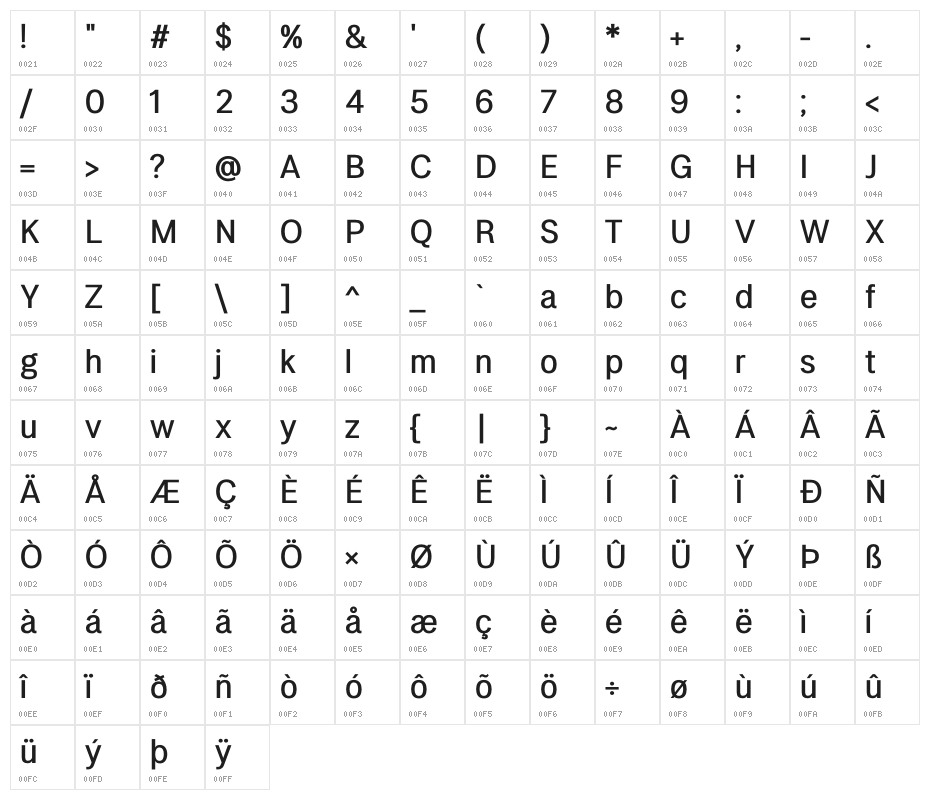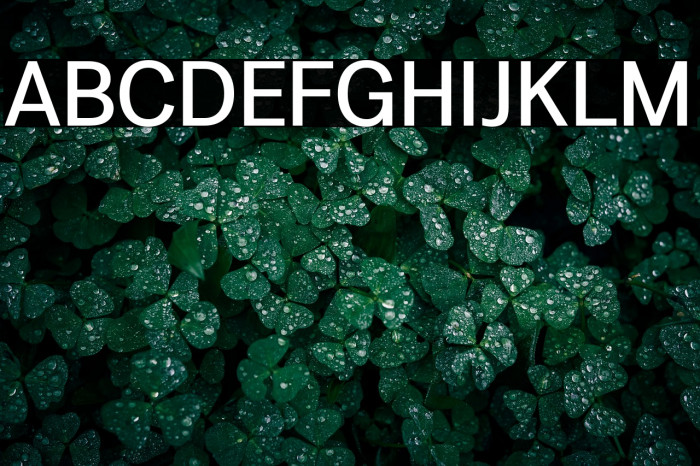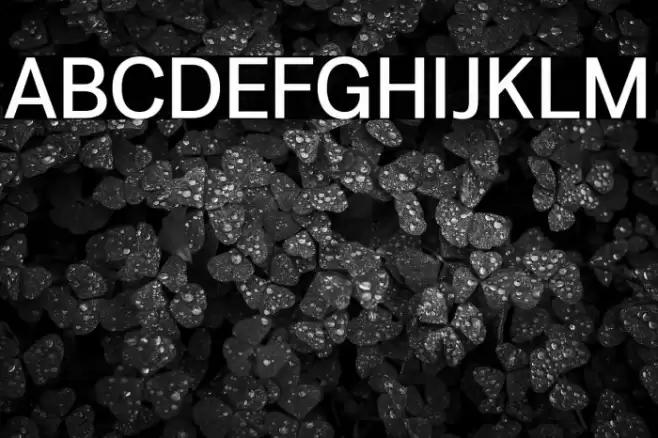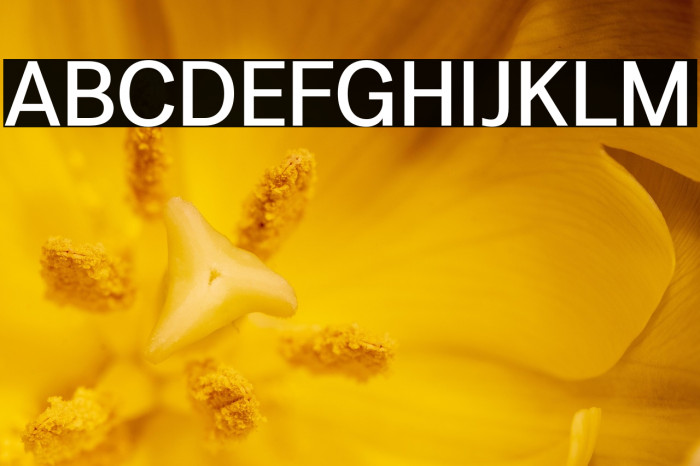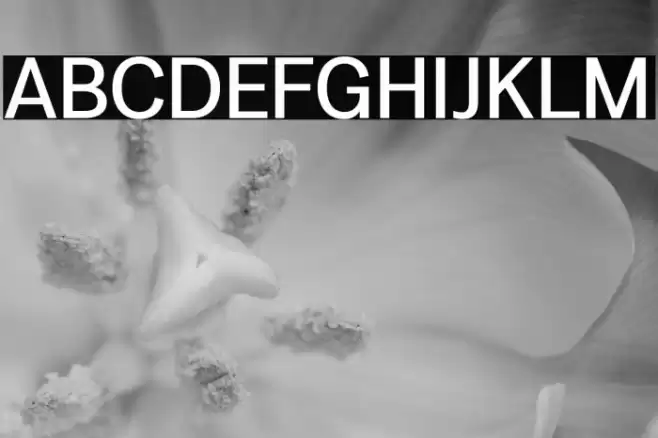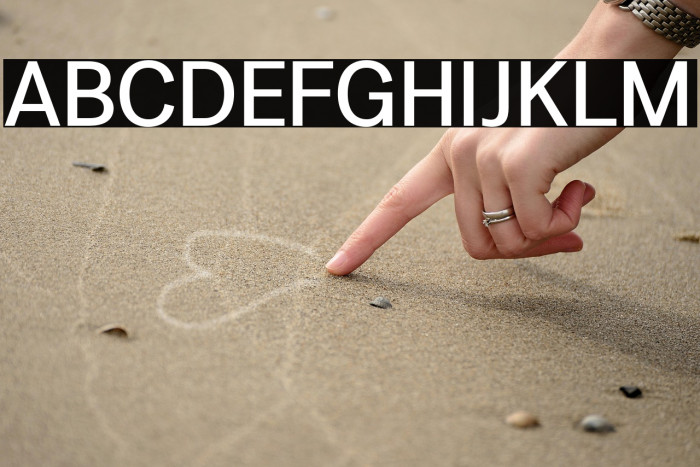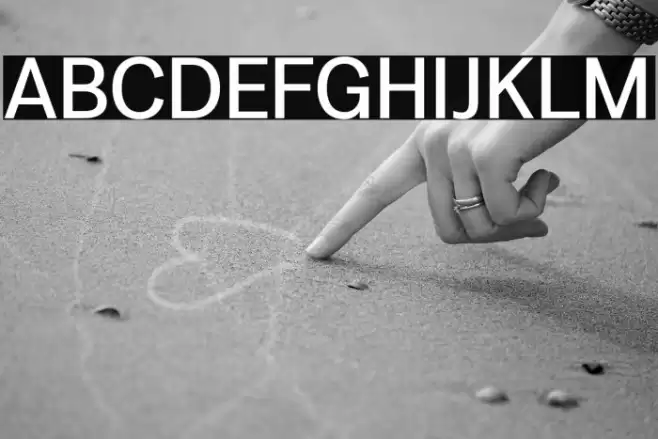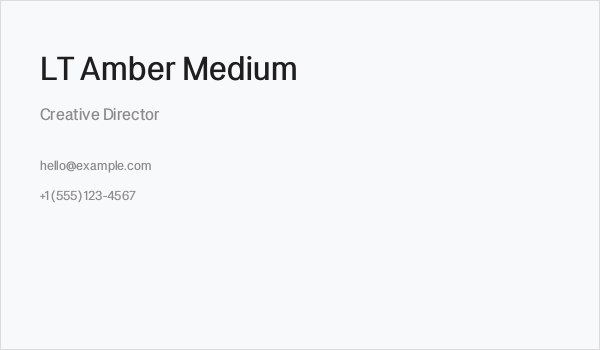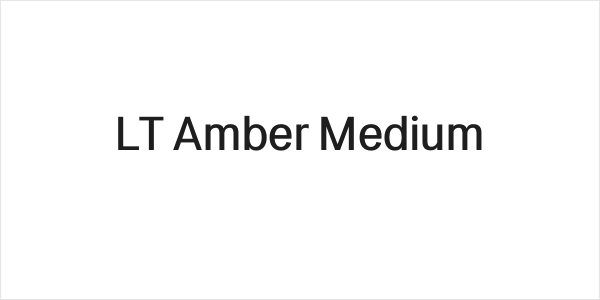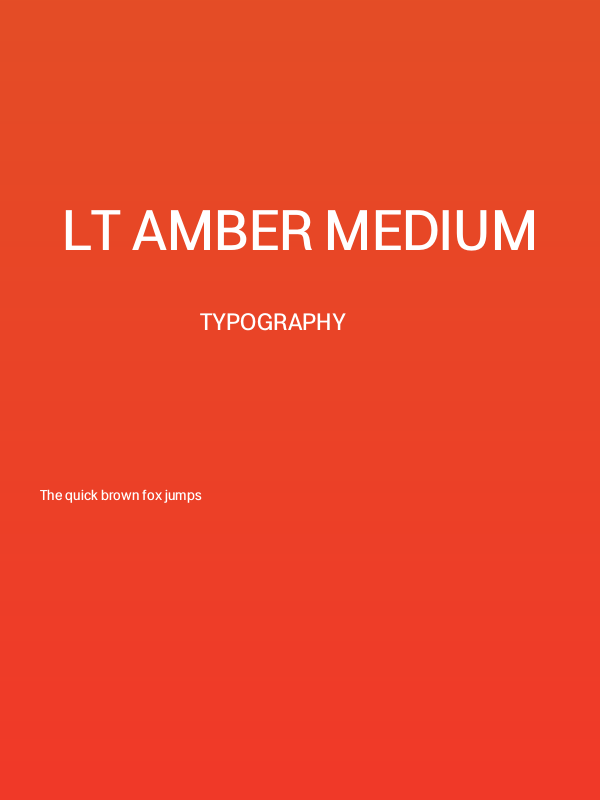
LT Amber Medium Font
LT Amber Medium Description
This font features a clean, modern sans-serif style with a focus on readability and simplicity. The characters are well-proportioned, with consistent stroke widths that provide a balanced appearance. The uppercase letters are bold and assertive, while the lowercase letters maintain a friendly and approachable look. The numerals are clear and easy to distinguish, making them suitable for various applications. Special characters are designed with the same attention to detail, ensuring they integrate seamlessly with the rest of the font. Overall, this font is versatile and can be used in a wide range of design projects.